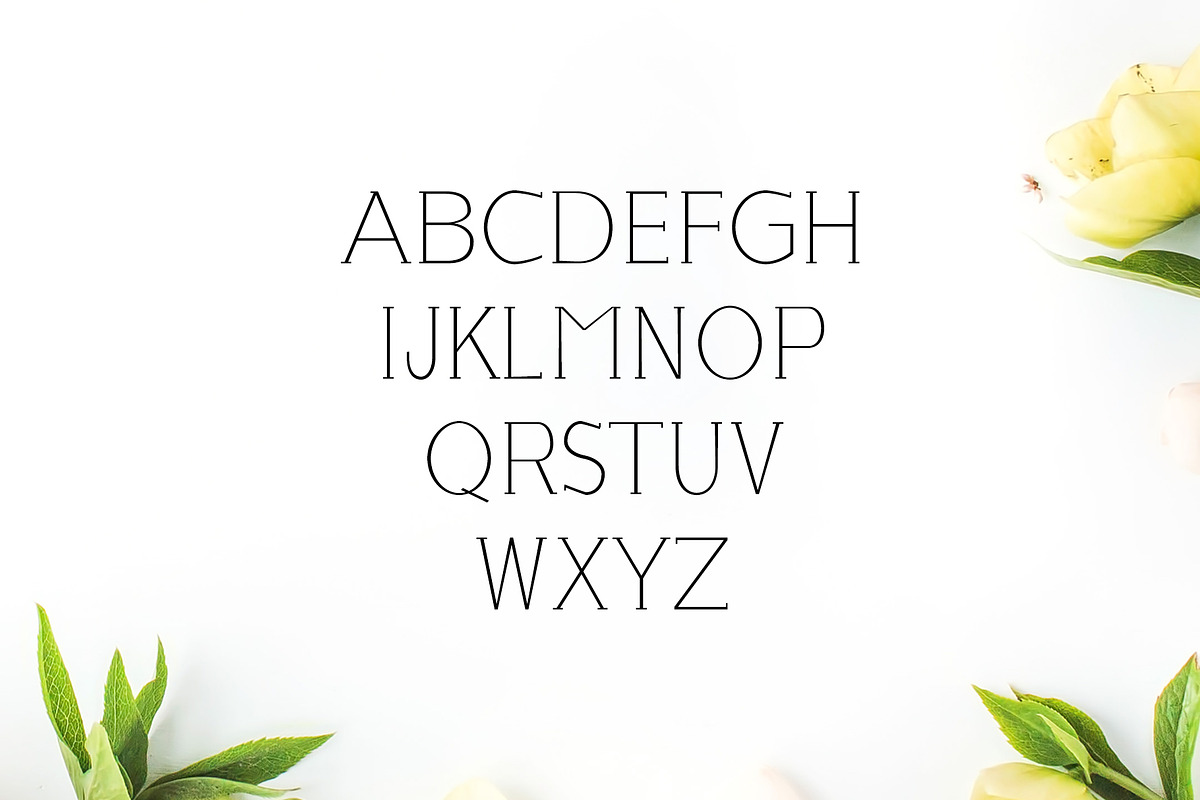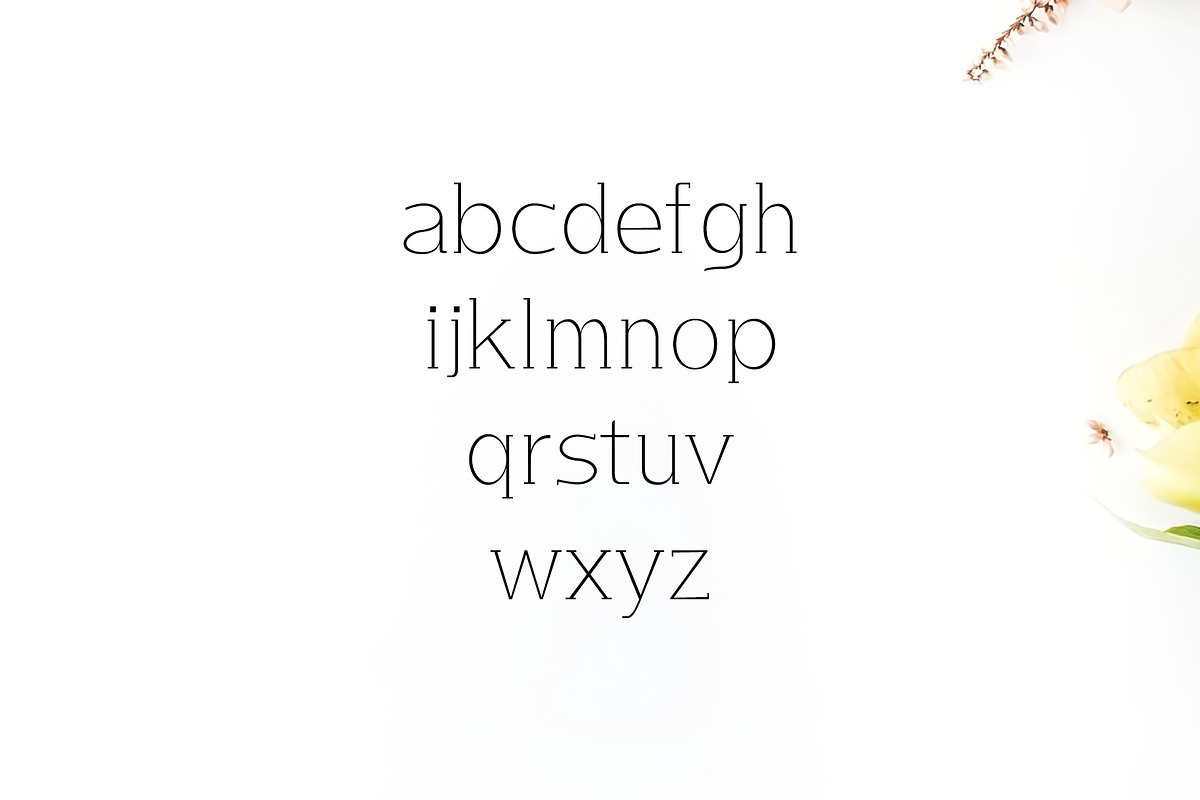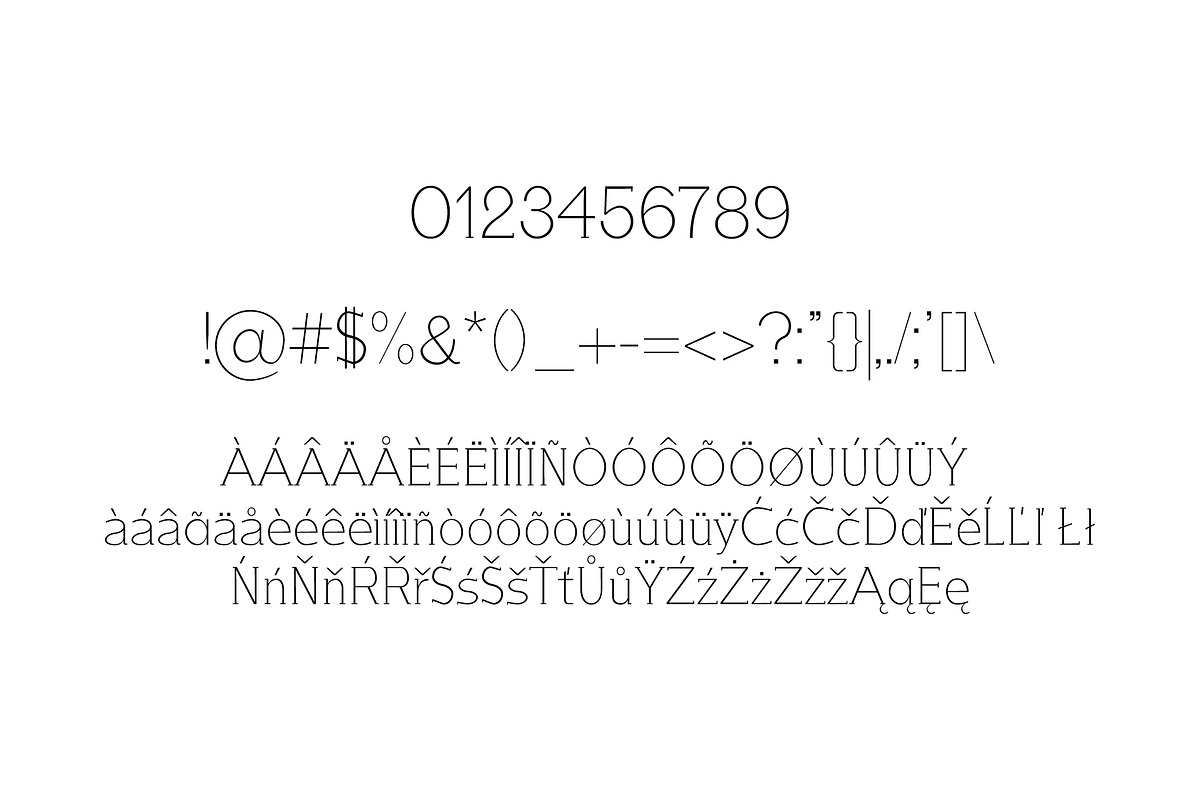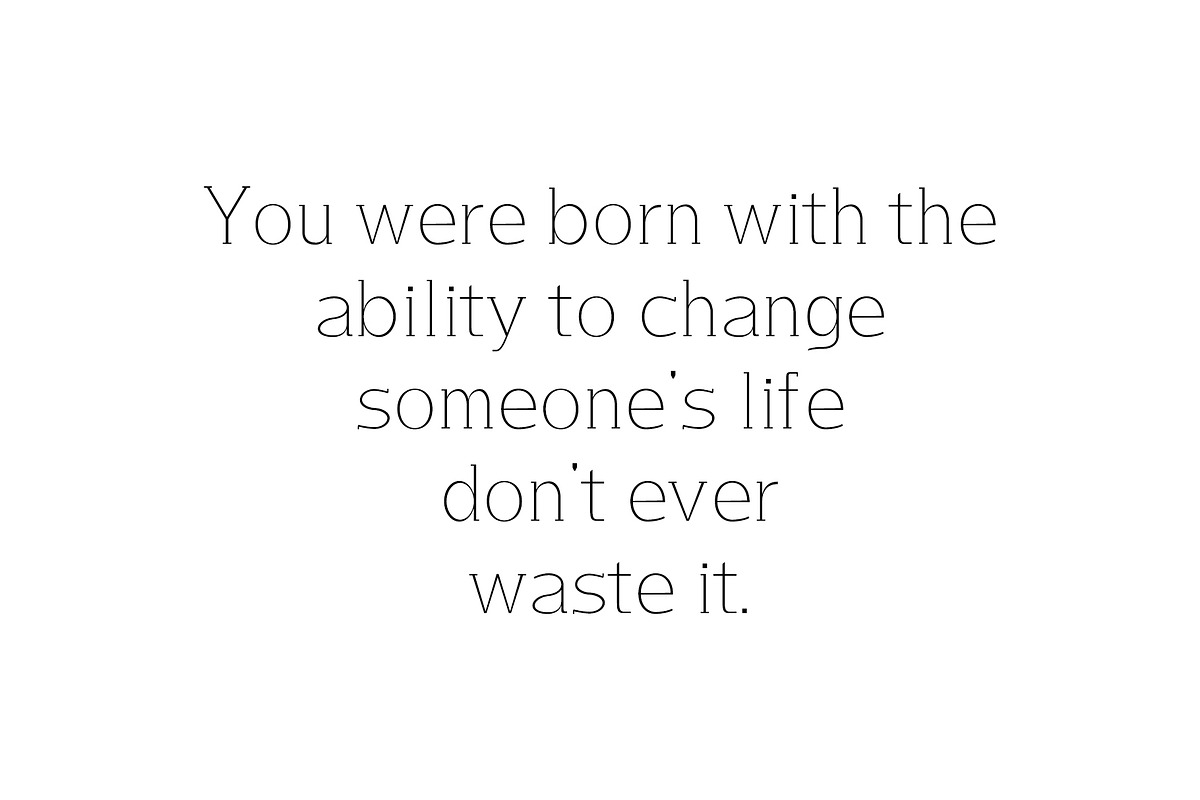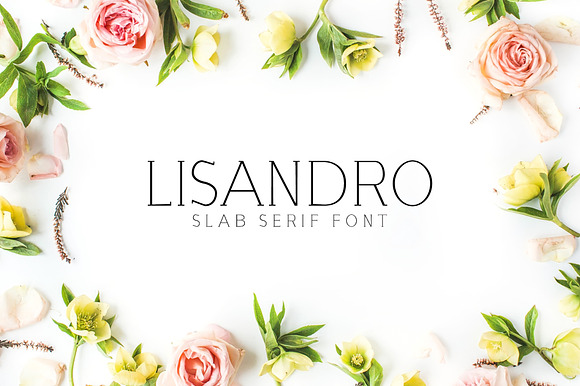
Lisandro Slab Serif Font
Lisandro Slab Serif Font is a set of Regular Weight and it is good for making creative displays. It’s a lovely and unique slab serif font in our store, allowing you to make each word look completely stylish! It Suits best for modern / clean designs, logos, headlines, banners and templates etc. It looks gorgeous in all caps with a wide-set spacing if you want to try a classy look, or beautiful on its own in capital and lowercase letters for something completely timeless.
- Uppercase Multilingual Letters
- Lowercase Multilingual Letters
- Numbers & Punctuation
- Non English Characters ( Latin Supplement + Latin Extended A)